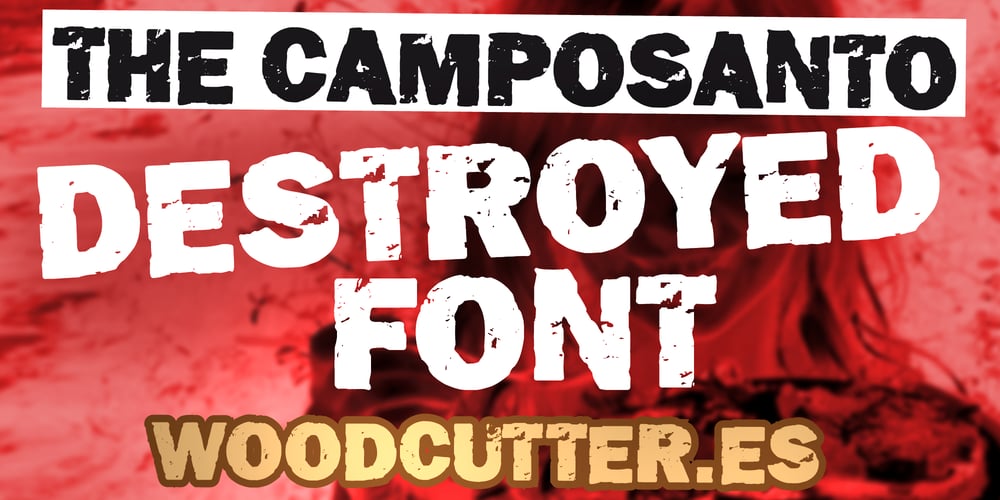
The Camposanto Font Family was designed by Jordi Manero and published by Woodcutter. The Camposanto contains 1 styles and family package options. “The Camposanto” is an uppercase typeface that exudes chaos and decay. Its letters, completely shattered and displaced from their original positions, seem to have been shaken by an earthquake. With a worn and damaged appearance, this font evokes a sense of abandonment and ruin, making it perfect for dark, eerie, or horror-related designs. Each character reflects imperfection and movement, giving it a handcrafted aesthetic suitable for posters, book covers, or visual projects aiming to convey intensity, drama, and an apocalyptic atmosphere. A bold and unique typeface for daring projects.